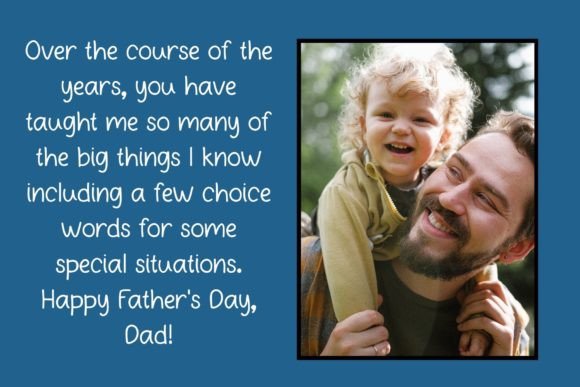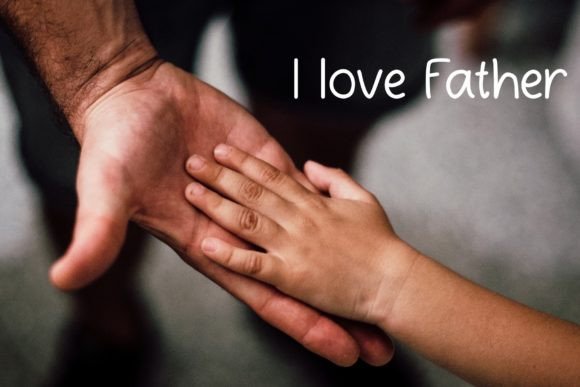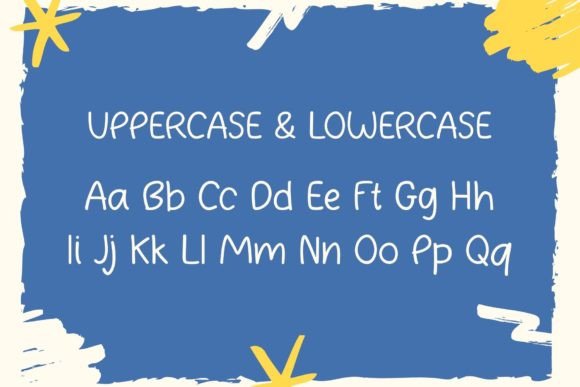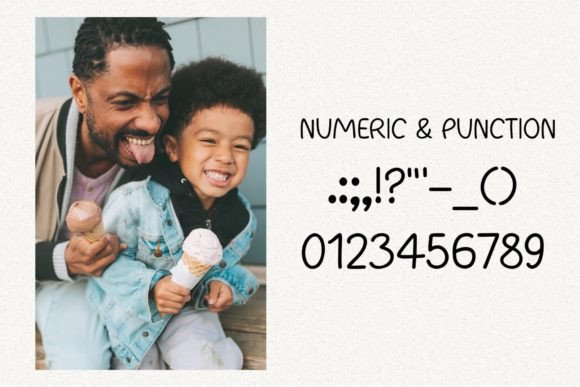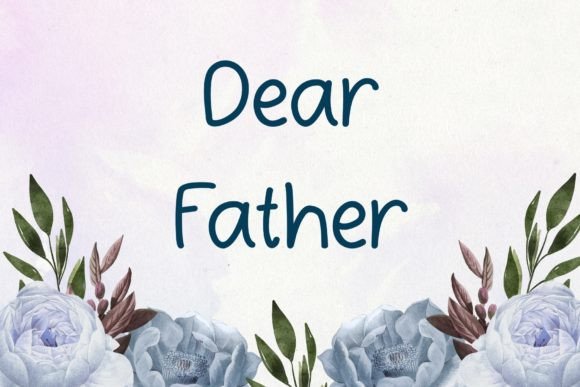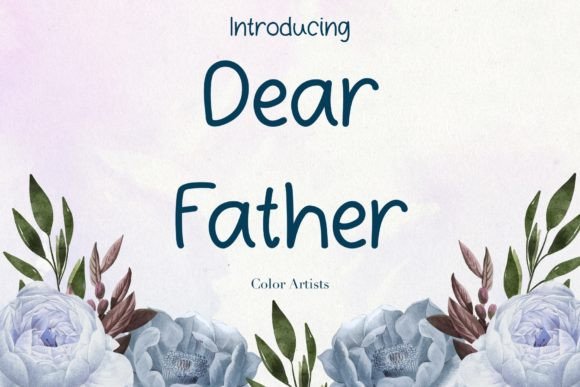
Discover the Heartwarming Dear Father Font: A Perfect Choice for Father’s Day Projects
Are you searching for a font that captures the essence of fatherhood? Look no further than the Dear Father Font. This beautiful, handwritten font is designed to convey the love, strength, and wisdom that fathers bring to our lives. In this article, we’ll explore the unique characteristics of the Dear Father Font and how it can elevate your Father’s Day projects, from heartfelt messages to greeting cards and more.
The Essence of Dear Father Font
Dear Father Font is more than just a collection of letters; it’s a way to express the deep emotions and respect we have for our fathers. Its handwritten style gives it a personal and intimate feel, making it perfect for projects that require a touch of warmth and sincerity. Whether you’re a designer looking for the perfect typography for a client’s project or a crafter making handmade cards for loved ones, this font is sure to inspire.
Key Features of Dear Father Font
- Handwritten Style: The font’s handwritten style gives it a unique and personal touch, making it stand out from more traditional fonts.
- Emotional Connection: It helps create an emotional connection with the reader, making it perfect for heartfelt messages and personal projects.
- Versatility: Dear Father Font can be used for a variety of projects, including greeting cards, posters, social media posts, and more.
- Easy to Read: Despite its artistic style, the font remains clear and easy to read, ensuring your message is always understood.
Using Dear Father Font for Father’s Day Projects
With Father’s Day around the corner, now is the perfect time to explore creative ways to celebrate and honor the fathers in your life. Here are some project ideas where Dear Father Font can shine:
- Handmade Cards: Add a personal touch to your Father’s Day cards with this beautiful font. Write a heartfelt message or a simple “Happy Father’s Day” to make the card extra special.
- Social Media Posts: Create engaging social media posts to honor your father’s day. Use the font to add captions to photos or illustrations celebrating fatherhood.
- Customized Gifts: Dear Father Font can also be used on customized gifts such as mugs, t-shirts, and tote bags. Add a special message or the father’s name to make the gift more personalized.
- Digital Art: If you’re skilled in digital art, use Dear Father Font as part of your artwork celebrating Father’s Day. It can add a beautiful, personal touch to your illustrations.
Tips for Working with Dear Father Font
To make the most of Dear Father Font, consider the following tips:
- Pair with Complementary Fonts: For a balanced look, pair Dear Father Font with simpler fonts for headings and body text.
- Adjust Size and Color: Experiment with different sizes and colors to emphasize certain words or phrases.
- Combine with Images: Enhance your project by combining the font with relevant images or illustrations that celebrate fatherhood.
Dear Father Font is a lovely handwritten font that embodies the strength, wisdom, and tenderness that fathers possess. Its unique style and versatility make it perfect for crafting heartfelt messages, greeting cards, or any other Father’s Day project. By incorporating this beautiful font into your designs, you’ll create memorable and meaningful tributes to the special fathers in your life.